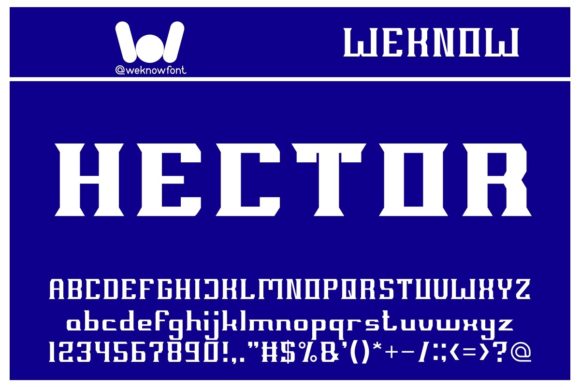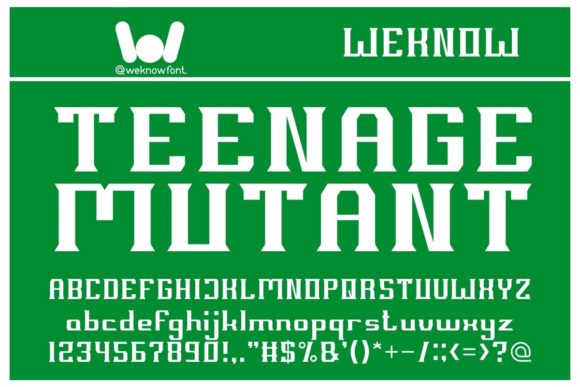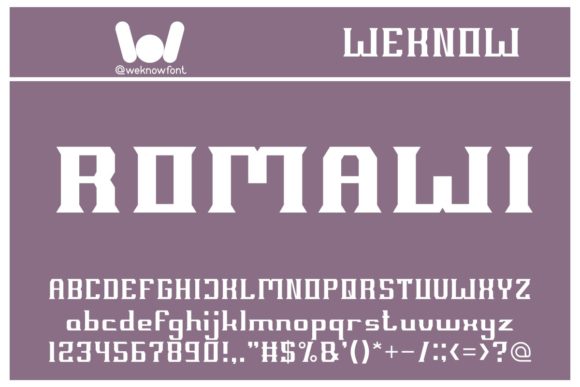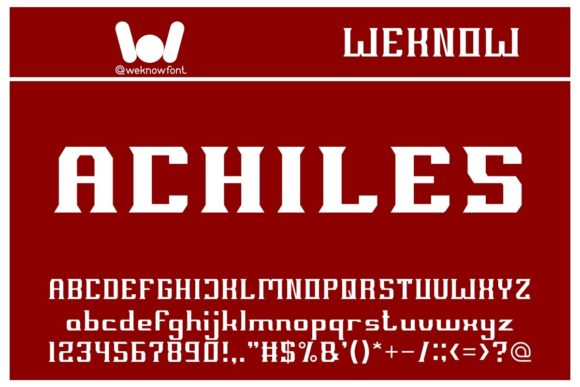
Introduction to Millenium 3 Font
Millenium 3 is a fancy various themed display font.
It is suitable for logos, brand identity, apparel industry, poster, music, movie, game, magazine, book, comic, cartoon, YouTube, Instagram, website, or any of your creative design projects .
Key Features of Millenium 3 Font
Why Choose Millenium 3 Font?
Millenium 3 Font offers exceptional quality and versatility, making it a valuable addition to your design toolkit. Whether you’re creating for personal projects or commercial use, Millenium 3 Font delivers professional results.